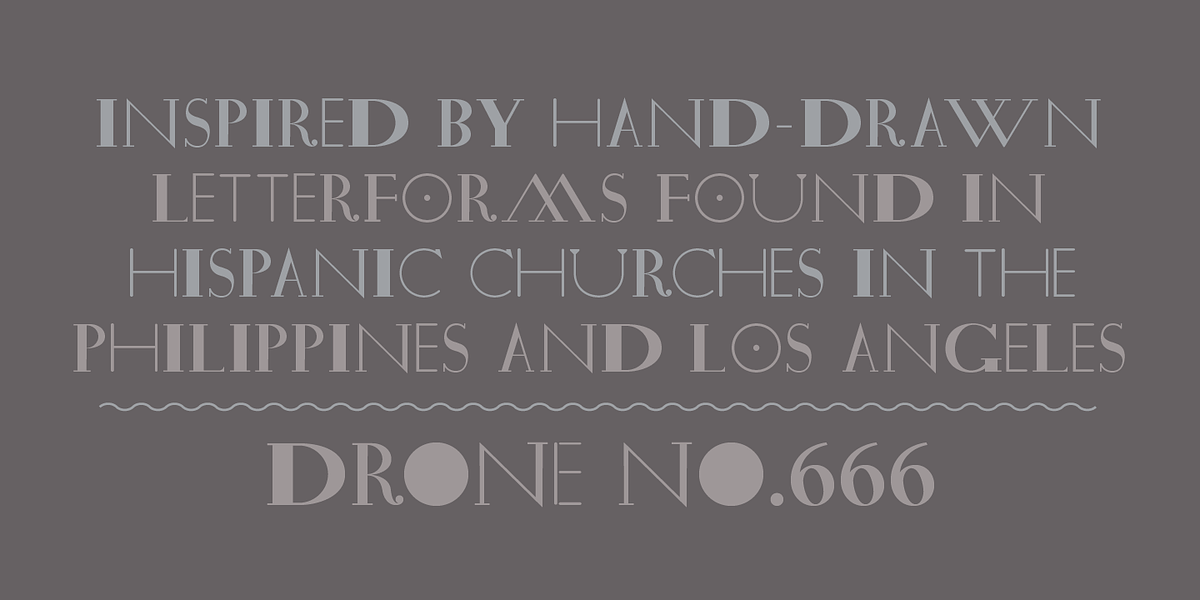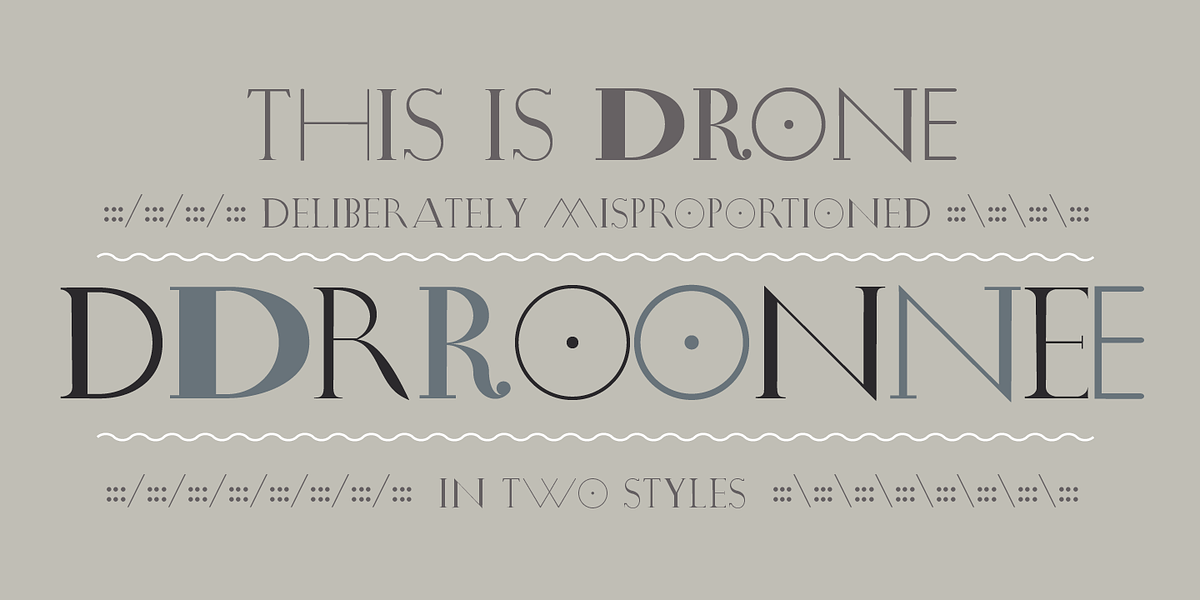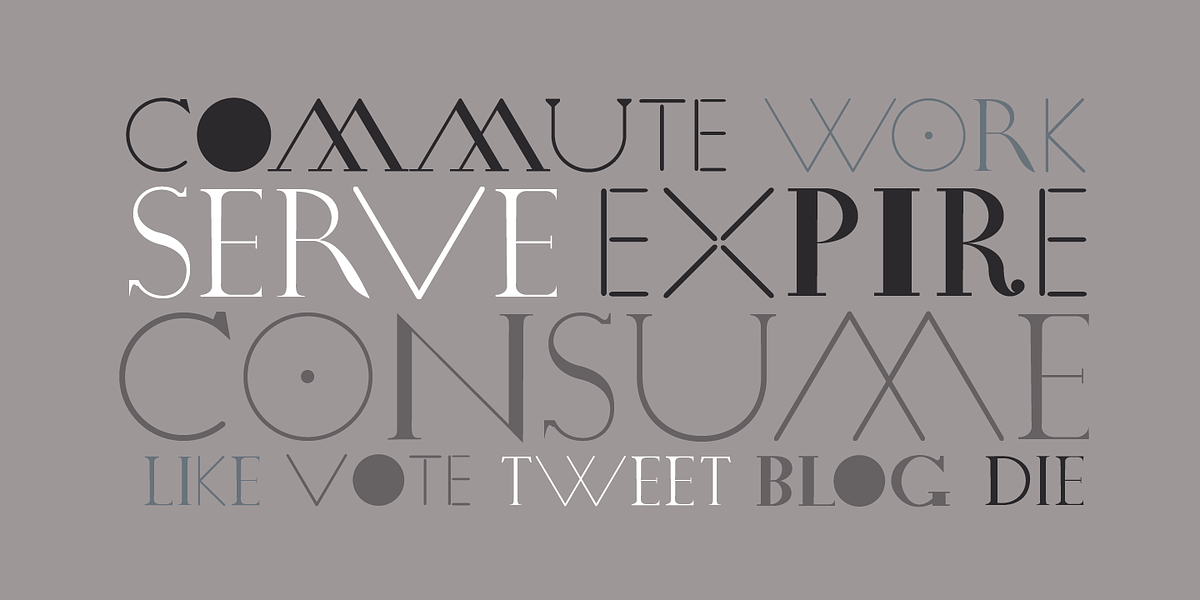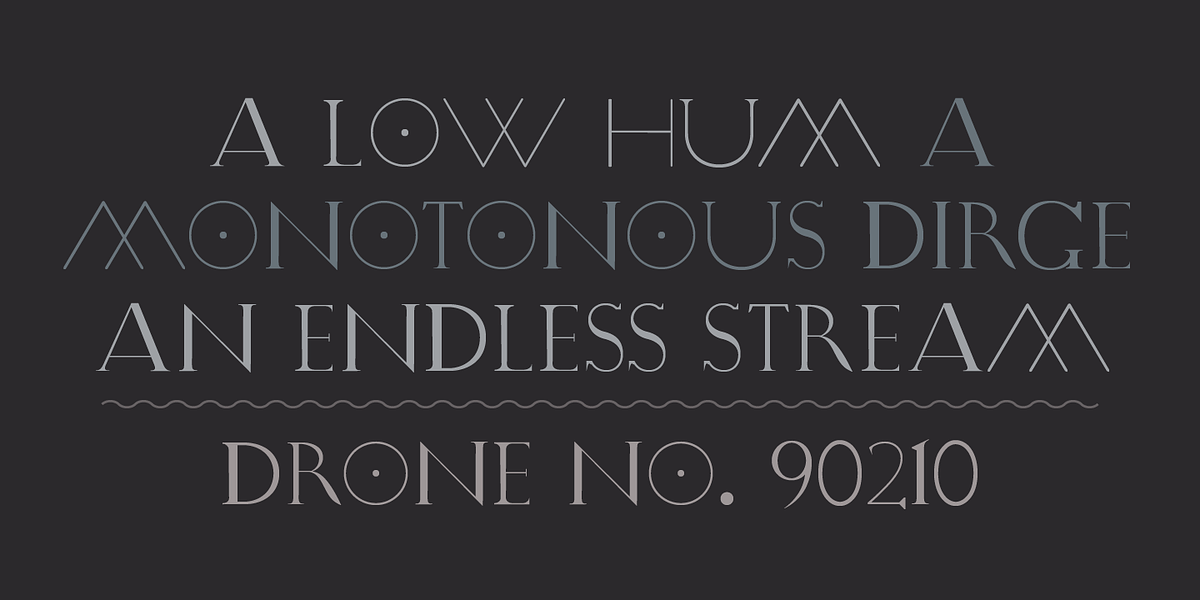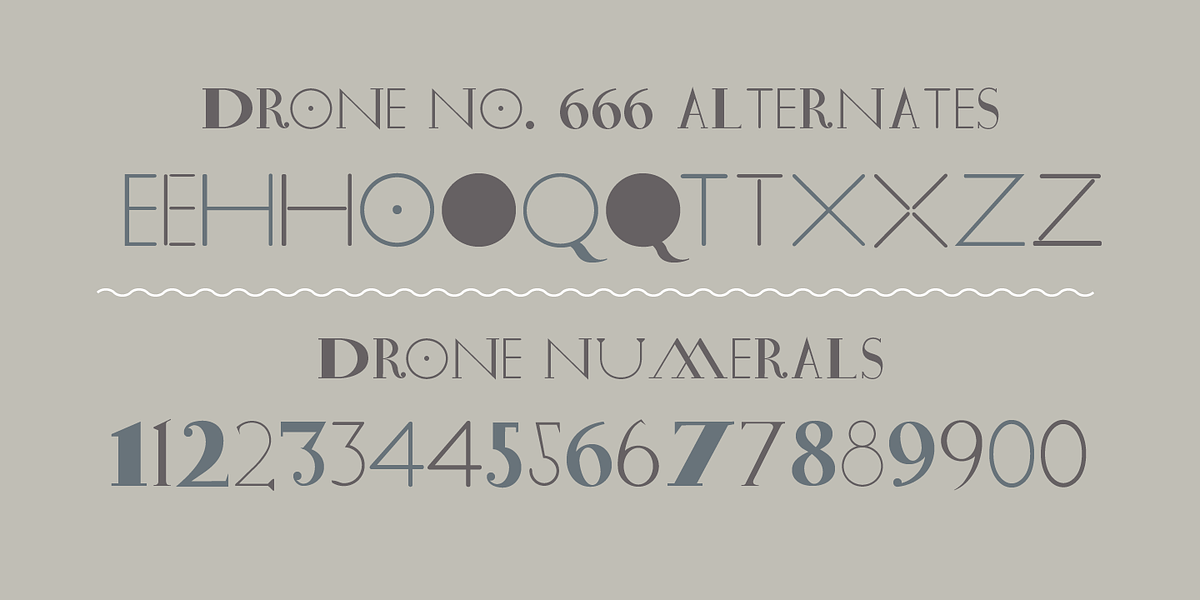
Drone
Drone is a display typeface inspired by the hand-drawn lettering found in Spanish/Hispanic Catholic churches. Its unique characteristic lies in its deliberately misproportioned letterforms, reminiscent of 'copies of copies' that aimed to recreate the beauty of the Vatican and Sistine Chapel but resulted in a charmingly distinct style. The font draws inspiration from both 16th century English calligraphy and the naive aesthetics found in these historical churches.